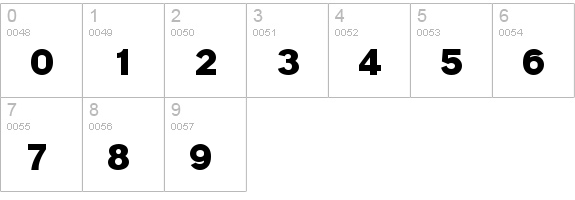
LargoD Font Details
Introducing LargoD, a stunning and versatile font that is bound to captivate and inspire. This unique typeface effortlessly combines elegance and modernity, making it perfect for a wide range of design projects. With its sleek and sophisticated lines, LargoD exudes confidence and professionalism, while offering a touch of creativity and finesse. The beauty of LargoD lies in its ability to adapt to various styles and contexts. Whether you're designing a logo, a website, a brochure, or any other creative endeavor, this font will effortlessly enhance your work and leave a lasting impression. Its clean and refined letterforms ensure optimal legibility, ensuring that your message is effectively communicated to your audience. What sets LargoD apart is not only its exceptional design, but also its accessibility. We believe that great design should be accessible to all, which is why LargoD is freely available to download at FontsMarket.com. This means that you can elevate your design projects without breaking the bank. Embrace the power of LargoD and unleash your creativity without limitations. But LargoD doesn't stop at just being a beautiful font; it also offers a wide range of weights and styles, giving you the flexibility to customize and tailor your designs to perfection. Whether you need a bold statement or a subtle touch, LargoD has got you covered. So why wait? Discover the endless possibilities that LargoD brings to your creative endeavors. Download this exceptional font now from FontsMarket.com and take your designs to new heights. Embrace the beauty of LargoD and let it transform your creations into works of art.